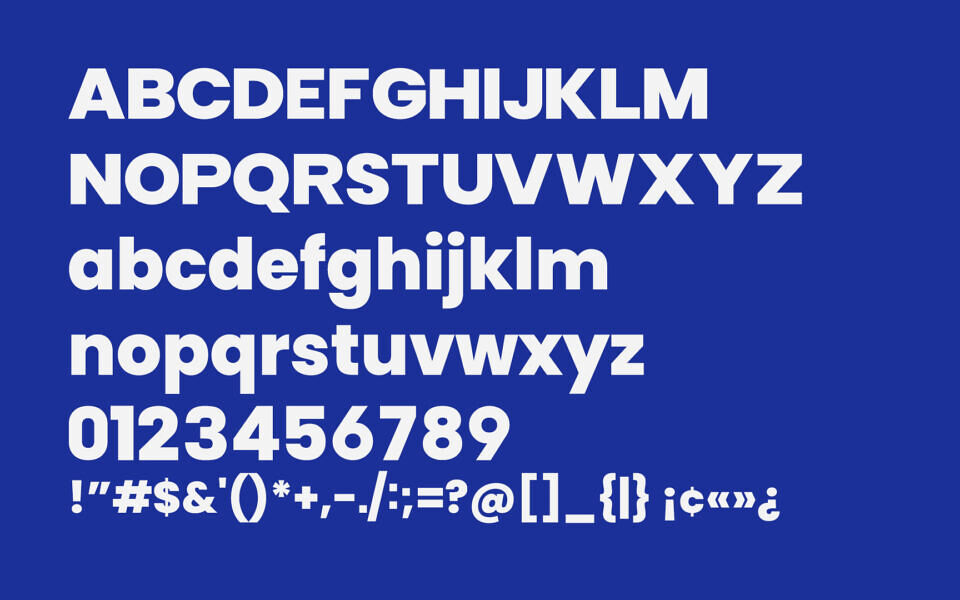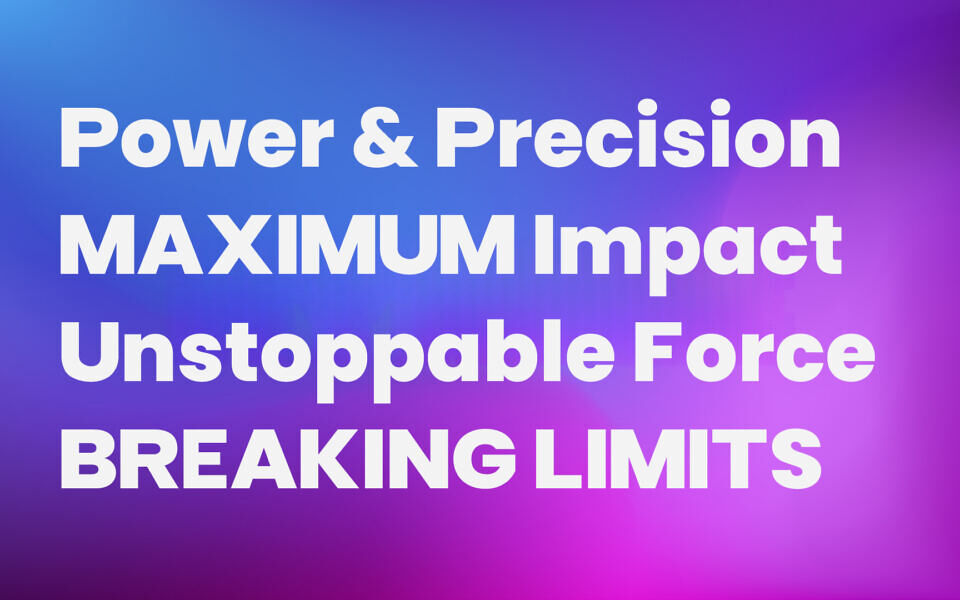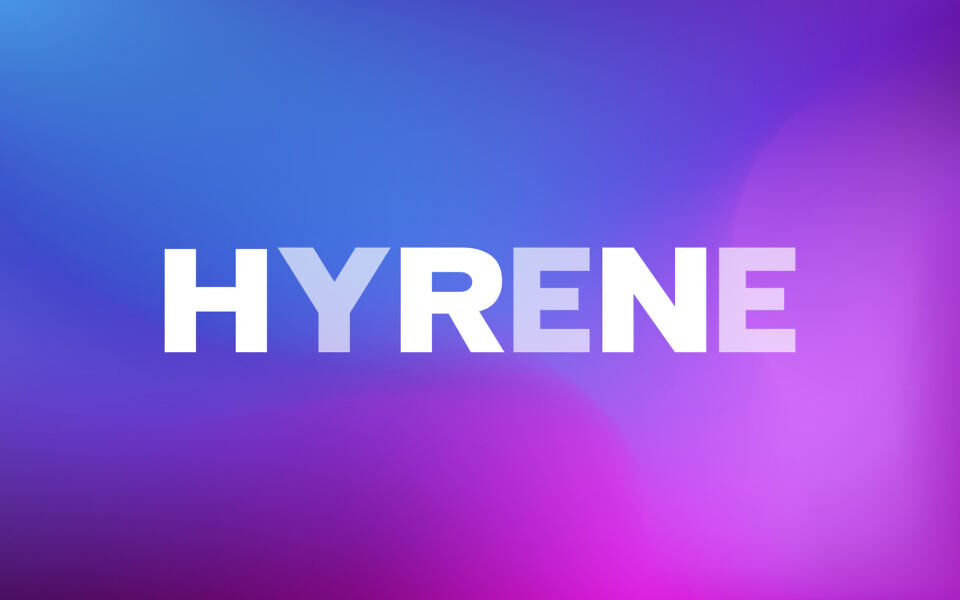
Hyrene Font
Hyrene is a bold, geometric, uppercase display typeface. The font is a fusion of Hanken Grotesk, Poppins and Barlow, with major structural modifications, spacing refinements, numeral reconstruction, and stylistic adjustments. It’s not a simple remix — it’s a rebuilt display system designed specifically for strong, bold usage.
Designed by: Handaru Daniswara